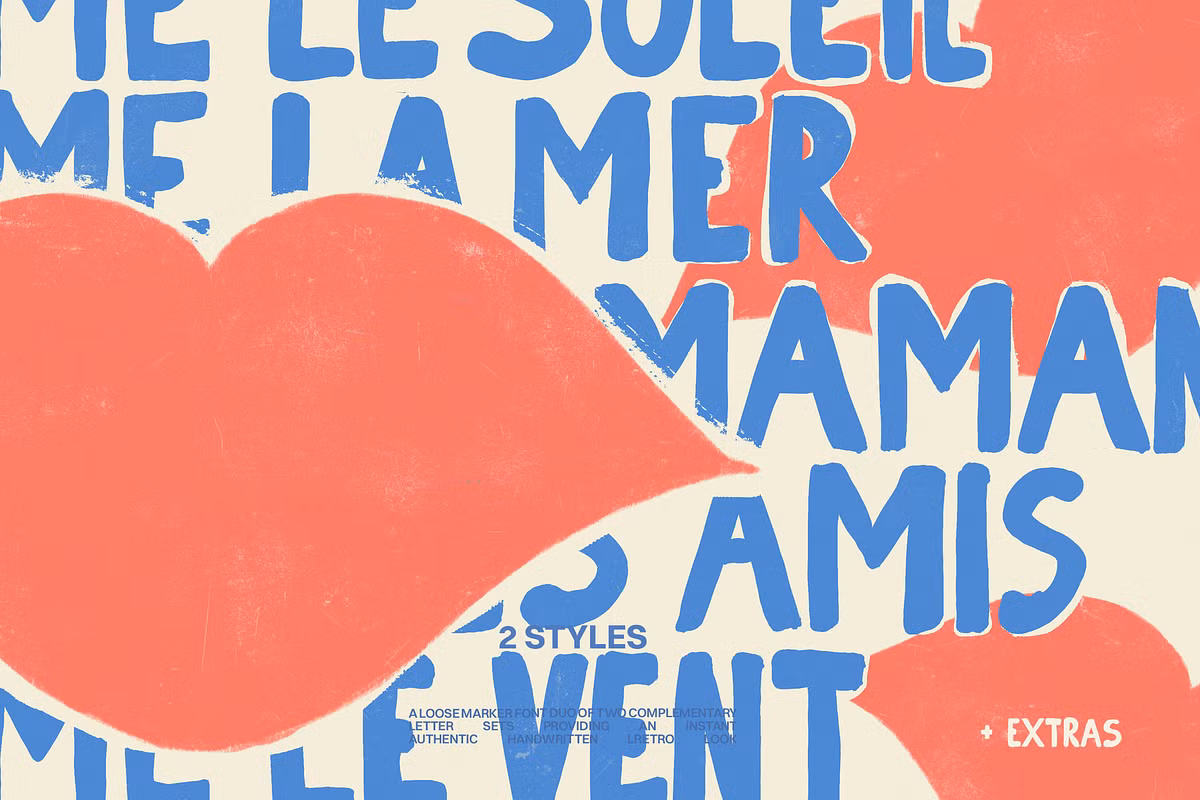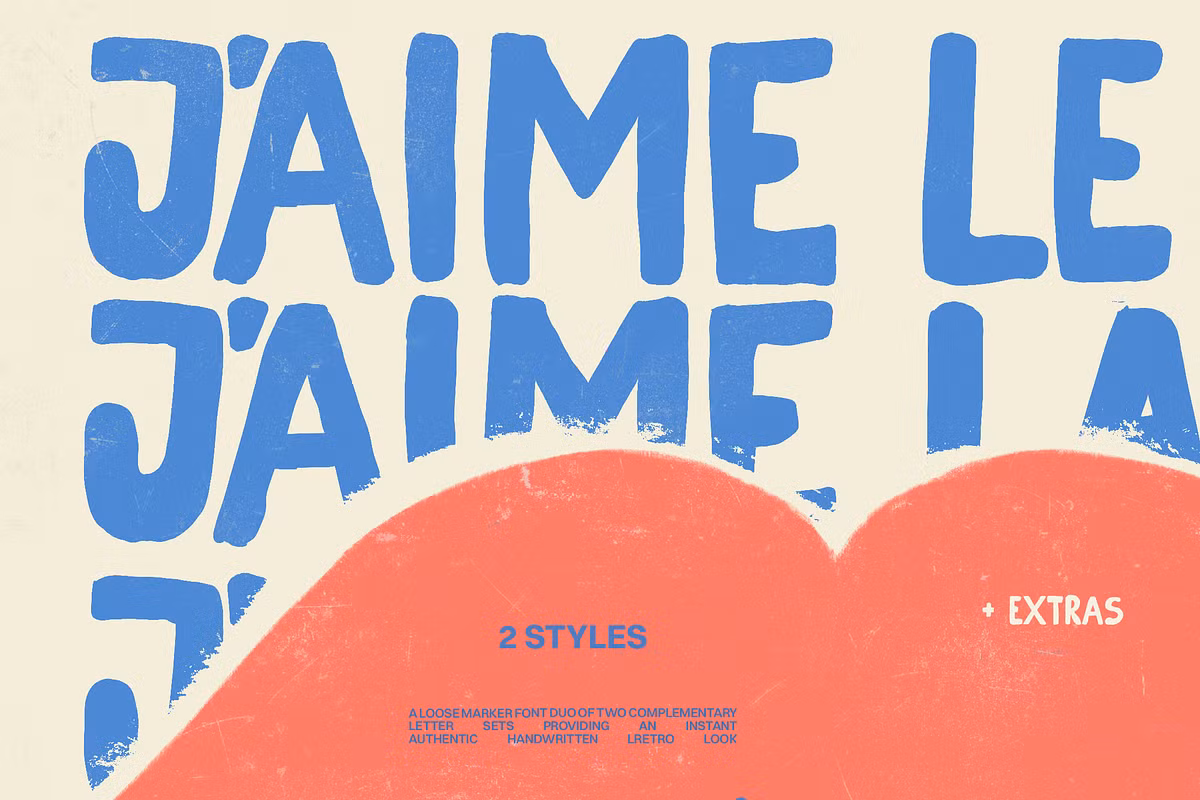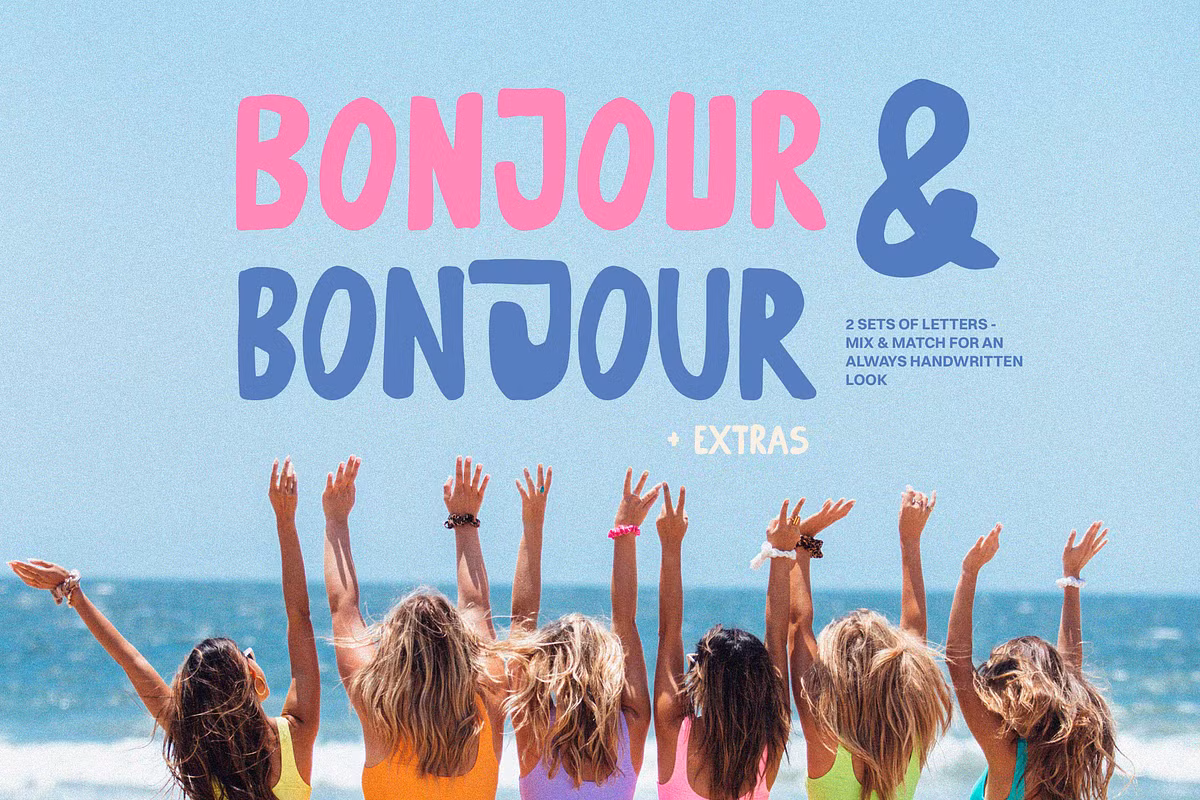
Handmade Retro Marker Font Duo: Fun All-Caps Typeface for Creative Design
This font set is really cool and can add a lot of character to your designs. It’s called the Handmade Retro Marker Font Duo and it comes with two special fonts, Bonjour and Monsieur. These fonts are all about making your text look like it was written by hand, which is great for people who want to make their designs stand out. You can use it for big headings, posters, or even social media pictures – it’s a great way to make your work look trendy and fun. The best part is, it’s perfect for anyone who wants to add a personal touch to their designs, whether you’re an artist, a designer, or just someone who loves to create.
This font duo has a really fun and quirky style that grabs your attention. The two fonts, Bonjour and Monsieur, are designed to look like they were made by hand, which gives your text a unique and personal feel. Because they’re all in capital letters, they can add a touch of sophistication to your project while still looking relaxed and casual. The way the lines are drawn, like they were made with a marker, makes it feel like the text was written in a spontaneous moment, which is perfect for projects that need to look friendly and approachable, but still professional.
The two fonts work really well together, and you can mix and match them to create a look that’s all your own. The soft, rounded edges and slightly uneven shapes give your designs a handwritten feel that’s really charming. This style is especially great for things like branding, ads, and packaging – it can help you stand out from the crowd. By combining these fonts in different ways, you can add a personal touch to your designs and make them more eye-catching. Whether you’re working on a new brand identity or just want to add some flair to your marketing materials, this font duo is a great choice. It’s perfect for anyone who wants to add a little creativity and whimsy to their designs.
Characteristics of the Fonts
- Bonjour is the main font in this pair, and it’s a bit thicker, which makes it great for big headings and titles.
- This font is a great match for Bonjour, it adds a softer feel and creates a nice balance when they’re used together.
- Extra Scribbles: The inclusion of fun scribbles enhances the playful nature of the font duo, allowing for further customization in your designs.
Character Sets
The Handmade Retro Marker Font Duo is really versatile and has a lot to offer. It’s got all the basics covered, with uppercase and lowercase letters, numbers, and punctuation marks. But what really makes it special is the extra characters and symbols it includes. This means you can use it to create all sorts of things, from logos and signs to posters and flyers, without having to worry about running out of options. Whether you’re working on a big project or just need something for a one-off design, this font duo has got you covered. It’s perfect for anyone who wants to add a bit of personality and charm to their designs, and the fact that it’s handmade just adds to its unique appeal. With the Handmade Retro Marker Font Duo, you can let your creativity shine and make your designs stand out from the crowd.
The fonts are made to be easy to read, even when they’re small. This is really important for designs that will be seen on screens, because people need to be able to understand what’s being said. If the words are hard to read, it can be frustrating and the message might not get across. So, these fonts are designed to be clear and easy to understand, no matter where they’re used.
The Handmade Retro Marker Font Duo is really good for lots of different things. Here are some ways you can use it:
- Posters and Flyers: Use Bonjour for your headline and Monsieur for the body text to create an engaging layout that captures attention.
- Fashion Brands: The playful nature of the font duo makes it perfect for fashion labels looking to convey a fun and trendy image.
- Social Media Content: Generate eye-catching graphics with the unique typography that stands out in feeds and stories.
- Shirt Designs: Create memorable slogans or quotes for apparel, with the fonts adding a personal touch to your designs.
- Funky Ads: Capture your audience’s attention with bold headlines that communicate a fun and innovative brand personality.
Mixing and matching different fonts can enhance your design’s aesthetic, and the Handmade Retro Marker Font Duo provides ample opportunities for creative pairings. Here are some suggestions to consider:
- Bonjour + Sans-serif fonts: Pair Bonjour with a clean sans-serif font to balance its playful nature with modern minimalism.
- Using Monsieur with a fancy script font can make things look really elegant and fancy. This is great for things like invitations or for companies that want to look high-end. The combination of the two fonts can create a beautiful and sophisticated feel that’s perfect for special occasions or for making a good impression.
- Bonjour + Bold Serif fonts: For a more classic look, pairing Bonjour with a bold serif font can create striking contrasts that enhance readability and visual interest.
The Handmade Retro Marker Font Duo is a great tool for designers who want to add a personal touch to their work. It’s got a fun, handwritten feel that can make your projects stand out. You can use it in lots of different ways, and it’s perfect for people who work in fashion, advertising, or social media. The two fonts, Bonjour and Monsieur, work really well together and can give your designs a trendy, eye-catching look. If you want to make your work look unique and interesting, this font duo is definitely worth checking out. It can help you create designs that really resonate with your audience and make you stand out from the crowd. So why not give it a try and see what you can create with the Handmade Retro Marker Font Duo?